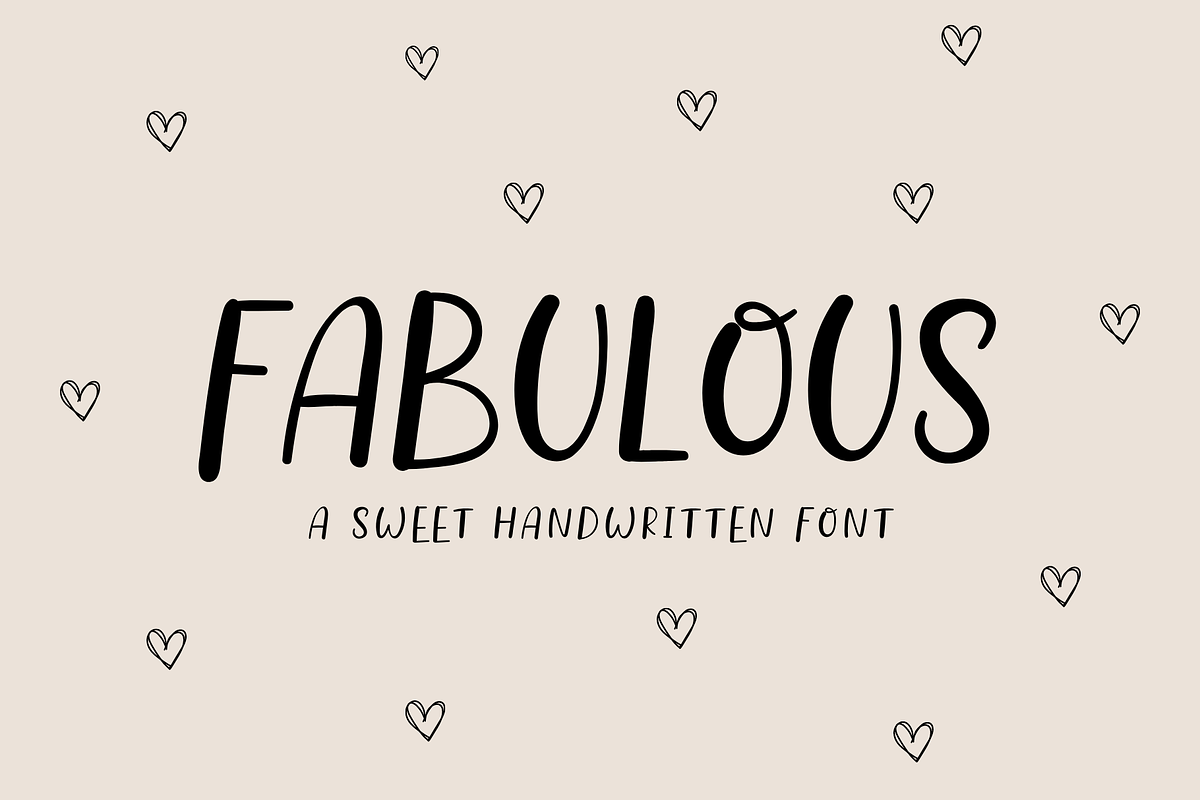
Fabulous Cute Font Free Download is an adorable and charming handwritten typeface designed to bring a touch of fun and joy to your creative projects. With its round, bubbly letterforms and playful strokes, this font is perfect for children's designs, invitations, social media posts, greeting cards, and any project that needs a cute, friendly vibe.
The font's playful, lighthearted design makes it ideal for creating warm, inviting messages that will appeal to all ages. Whether you're designing for a kids' brand, planning a party, or simply adding a touch of whimsy to your work, Fabulous Cute Font adds personality and charm to your typography.